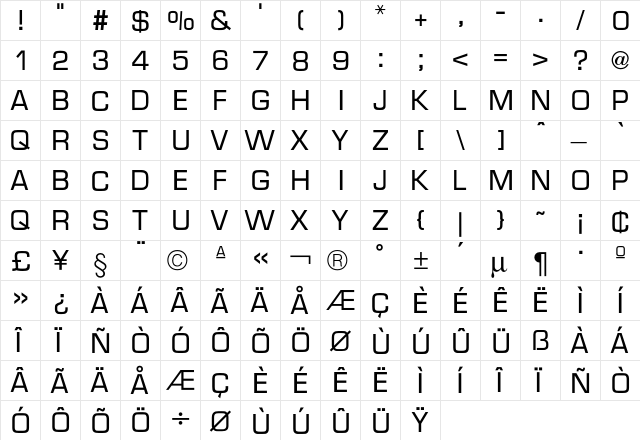
Micro Technic Font Preview
Micro Technic
Micro Technic Font Details
| Style | Technic |
Design Context for Micro Typeface
Micro has a distinctly futuristic character, with geometric precision and clean angles that feel at home in technology, gaming, and sci-fi contexts.